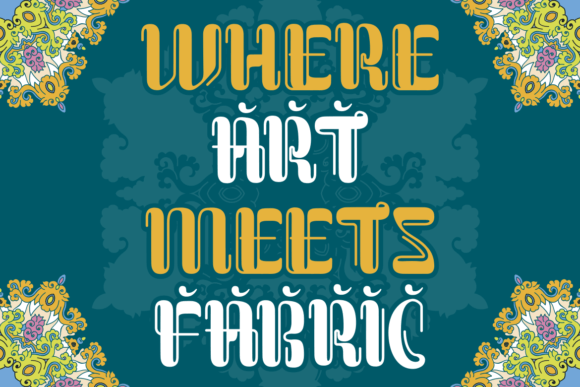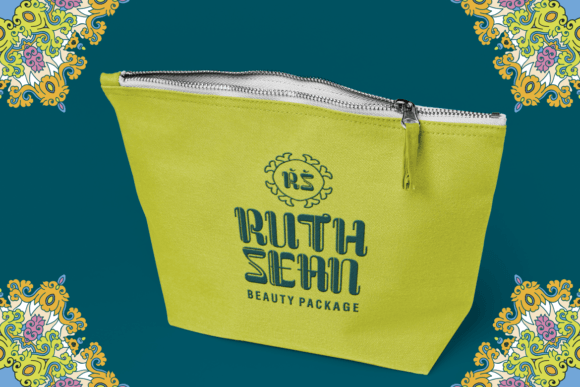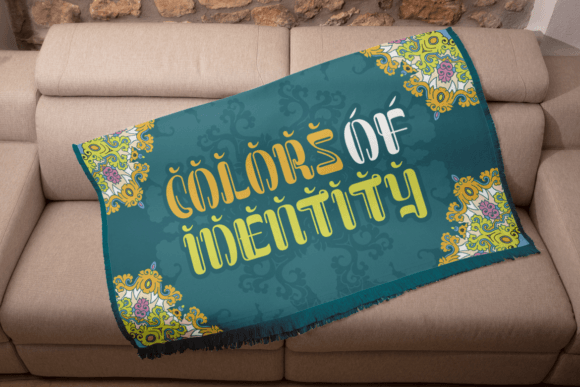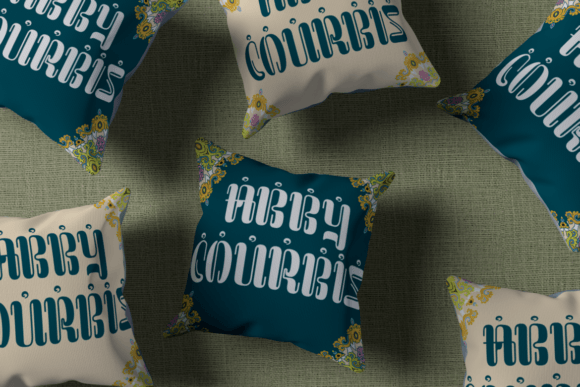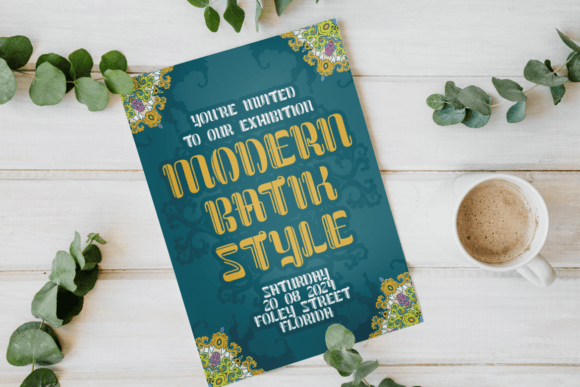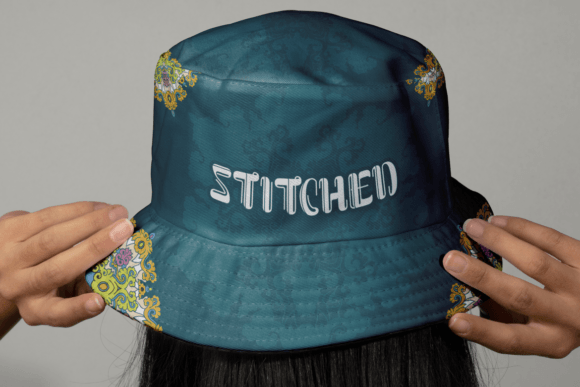
Unleashing the Beauty of Javanese Culture in Modern Design
As designers, we’ve all been there – staring at a blank page, searching for the perfect font to bring our creative vision to life. It’s a moment of pure inspiration, where the right typeface can elevate an entire design and transport the viewer to a new world. For us, that moment came when we discovered the Batik Blend Font – a captivating display typeface that beautifully merges the intricate art of Javanese batik with classic Sanskrit-inspired design.
Batik Blend Font is a celebration of Java’s rich cultural heritage, bringing the traditional aesthetic into the modern design landscape. Its unique character is evident in its detailed and artistic letterforms, making it an ideal choice for projects that require an ethnic and classic touch. Whether you’re creating logos, branding materials, or crafting intricate invitations, this font provides a visually stunning solution that stands out.
Batik Blend Font Key Features
- Unique Characteristics: Batik Blend Font features a unique blend of traditional and modern design elements, making it perfect for creating visually striking and creative content.
- Style Variations: Batik Blend Font offers a range of style variations, including regular, bold, italic, and bold italic, allowing users to create a variety of visual effects.
Designer Review: Batik Blend Font
As a designer, I was excited to try out the Batik Blend Font. Overall, it’s a unique and interesting typeface that can add a touch of elegance to various designs.
- The font’s blend of traditional and modern elements creates a captivating visual effect.
- The bold and light weights are well-designed and versatile, making it suitable for a wide range of applications.
- The font’s intricate details and patterns make it an excellent choice for designs that require a sense of sophistication and refinement.
- The font may be too ornate for certain designs, potentially overwhelming the user’s experience.
- The lack of a condensed weight may limit its use in narrower spaces or contexts.
While the Batik Blend Font has its limitations, it’s an excellent choice for designers looking to add a touch of sophistication and elegance to their work. With careful consideration of its potential drawbacks, this font can be a valuable addition to any design toolkit.
Tips for Getting the Most Out of Batik Blend Font
To get the most out of the Batik Blend Font, try:
- Combining it with bold or italic styles for added emphasis.
- Pairing it with a contrasting background color to make it stand out.
- Using it for titles or headings to add a touch of elegance.